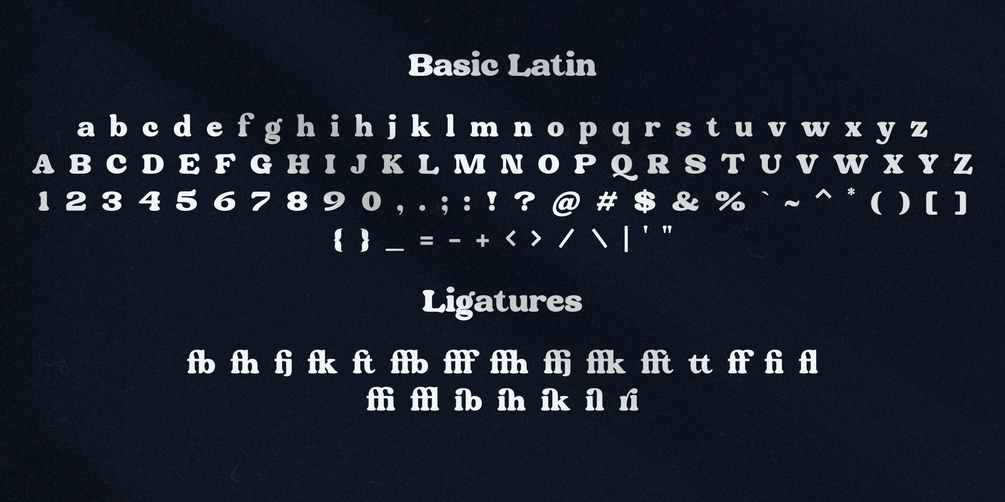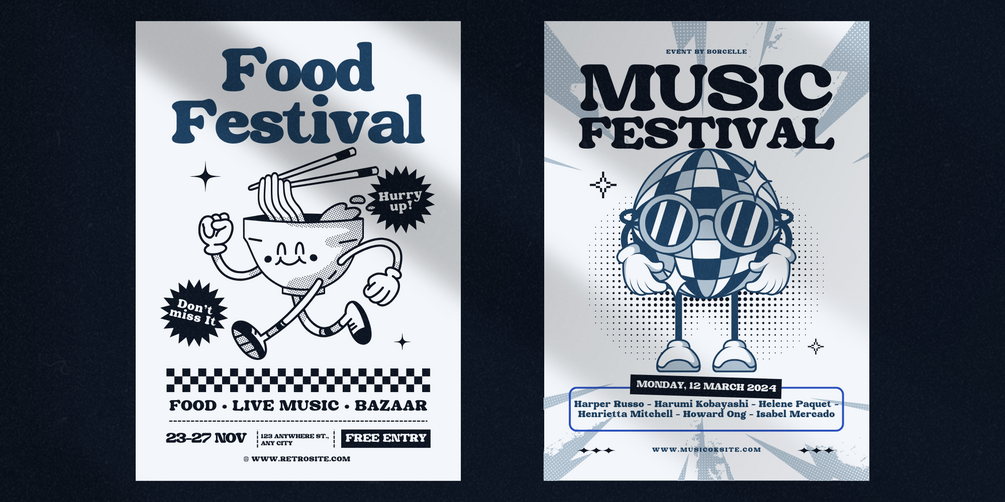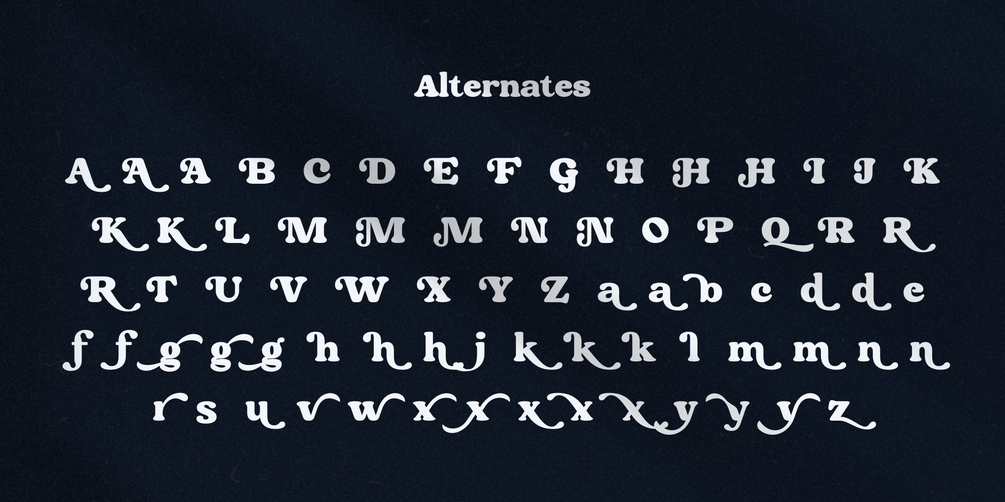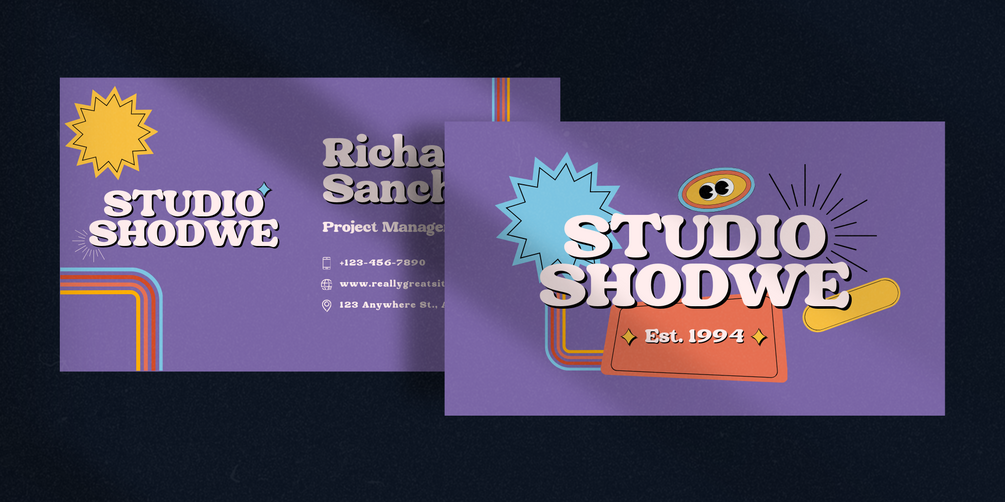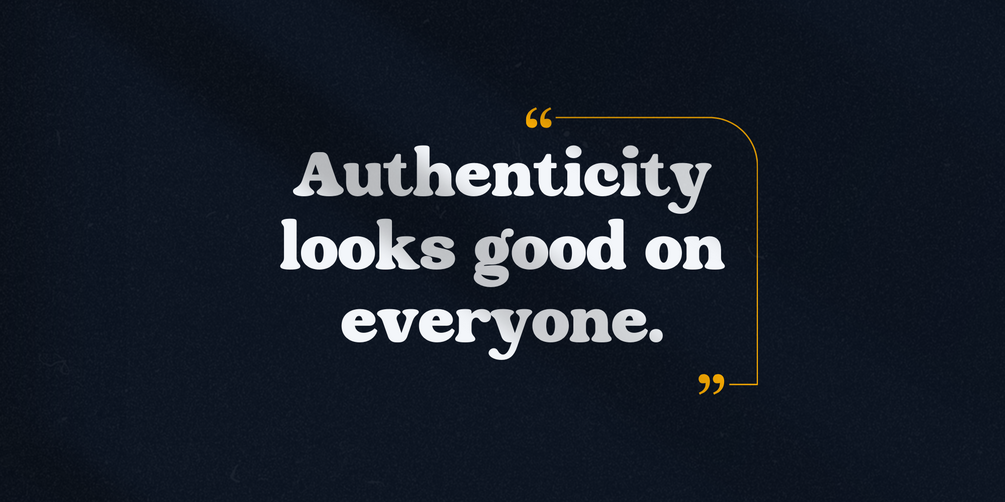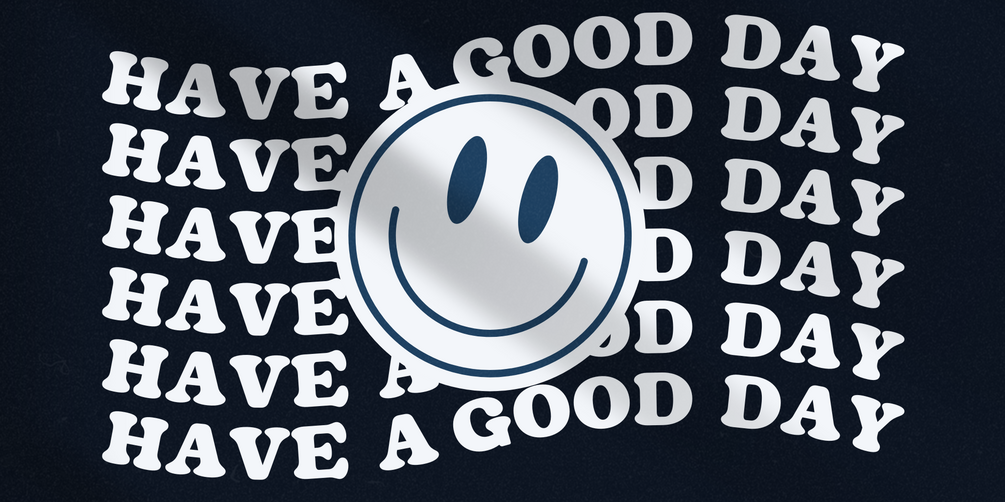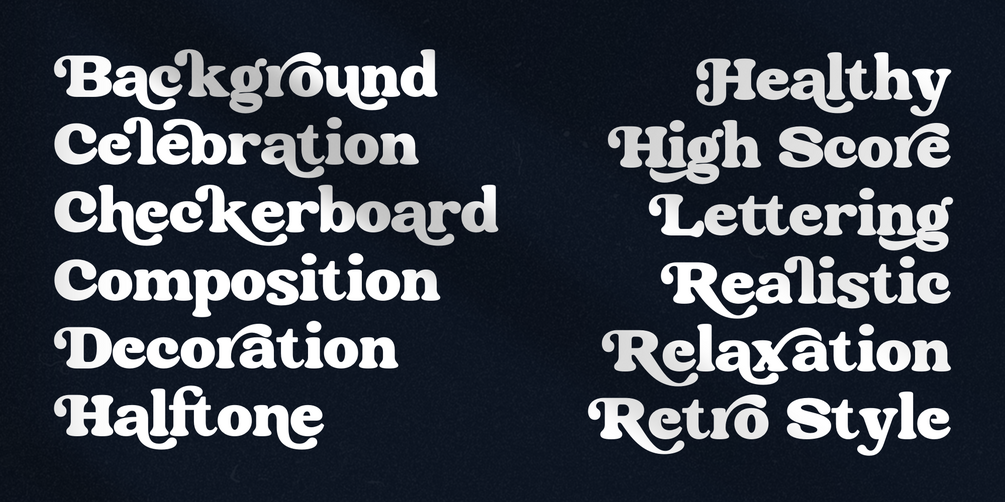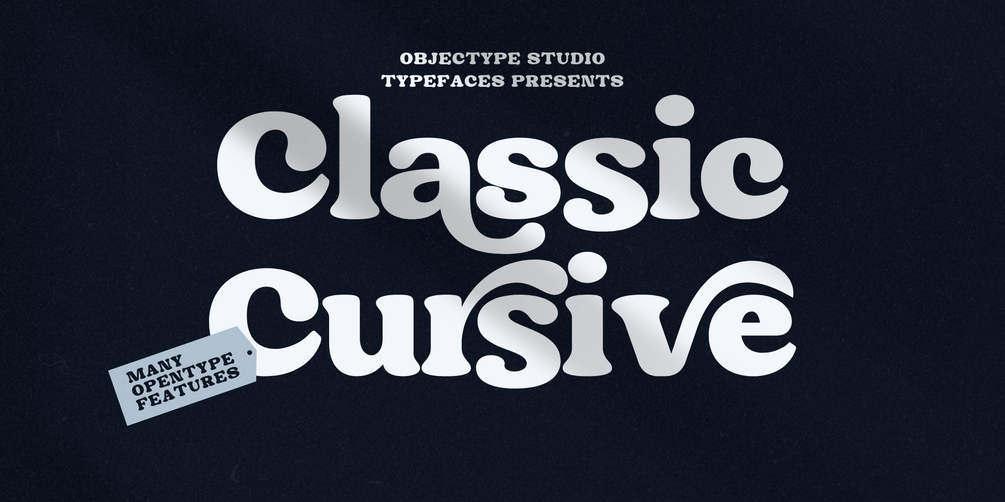
Classic Cursive
About Classic Cursive Font
This font is the perfect choice for designs that evoke nostalgia from the classic typography era of the 1940s and 1950s. With characteristics that reflect a classic style, this font can create a unique and bold atmosphere in every piece of work. With its uniqueness and versatility, this font is suitable for various design projects, especially those embracing a retro concept that aims to highlight timeless classic features.
Additionally, the font's strength lies not only in its unique design but also in its support for various languages. From Afrikaans to Zulu, this font can reach users from different parts of the world. With its broad ability to support these languages, this font can seamlessly integrate into various global design projects and leave a special impression on each.